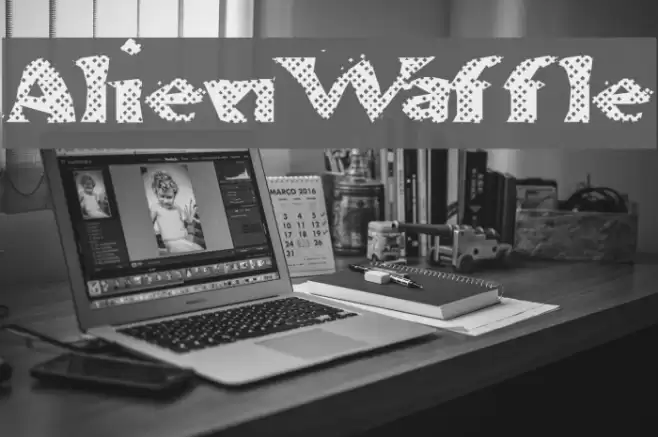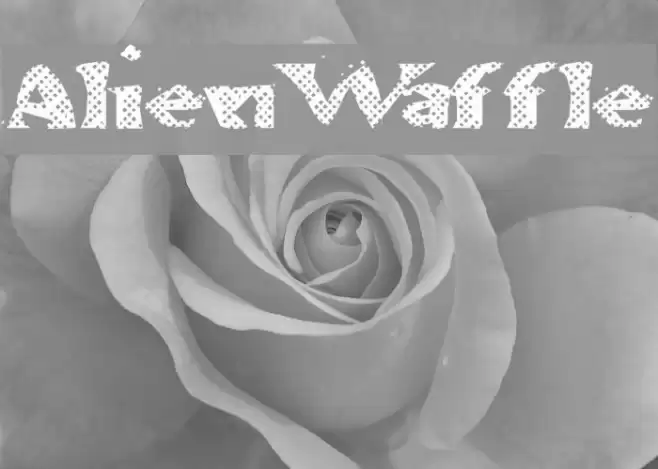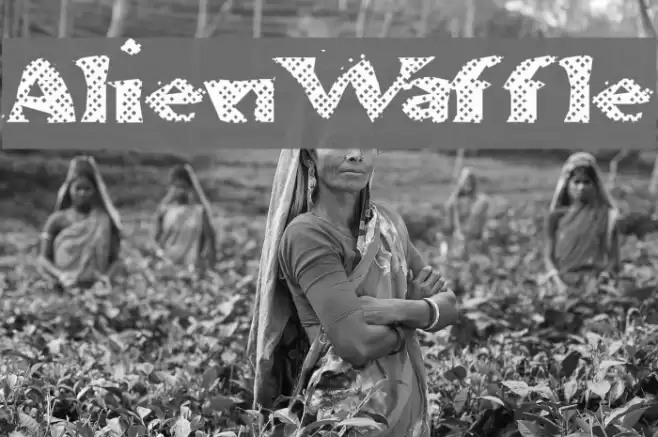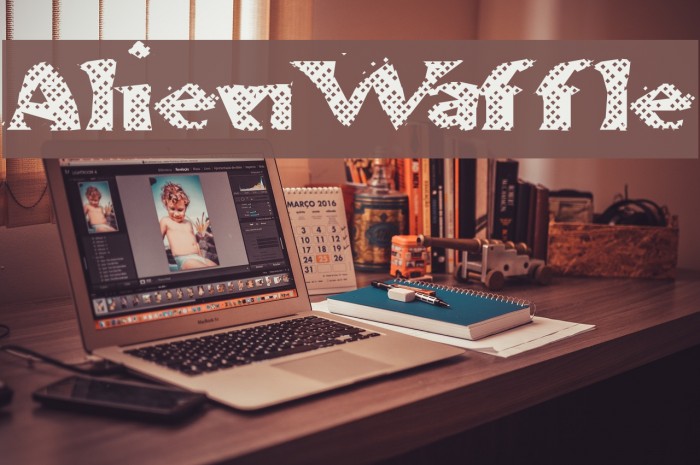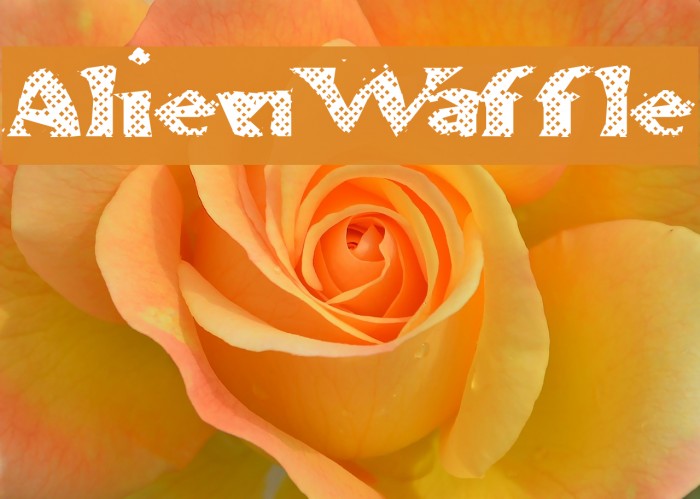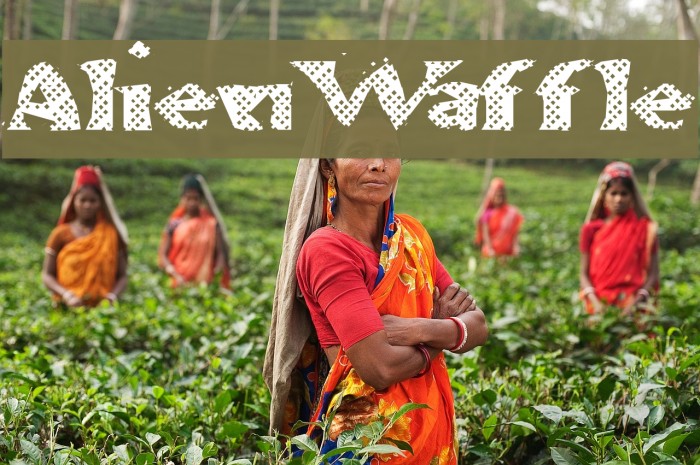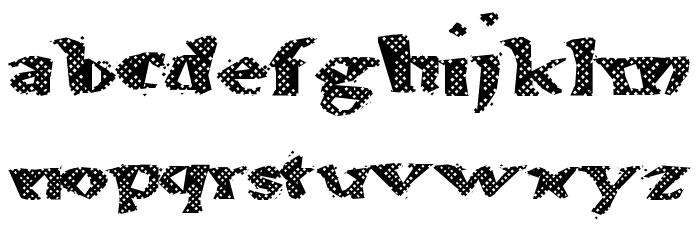
AlienWaffle Font
AlienWaffle Description
This font features a unique, playful design with a dotted texture that gives it a whimsical and extraterrestrial feel. The characters are bold and slightly irregular, adding to the quirky aesthetic. The uppercase and lowercase letters maintain a consistent style, with rounded edges and a sense of movement. Numbers and special characters follow the same design principles, ensuring a cohesive look across all elements. The font's distinct appearance makes it stand out, ideal for creative and unconventional projects.
A playful, dotted font with a whimsical and extraterrestrial vibe from Uncategorized fonts.
- Proposed Projects: Perfect for sci-fi themed posters, children's book covers, creative branding, and any project requiring a fun, out-of-this-world touch.